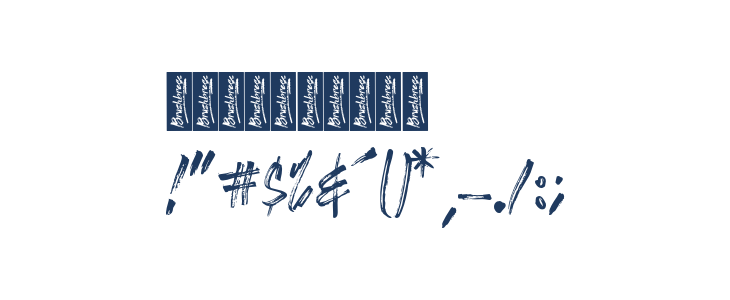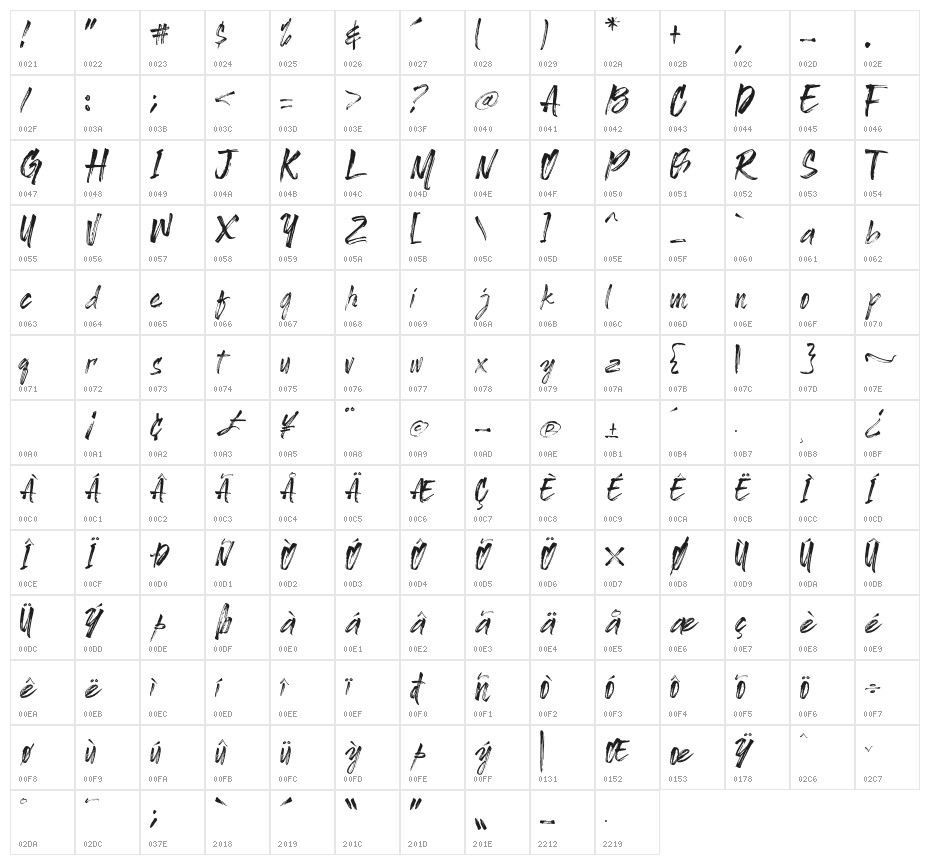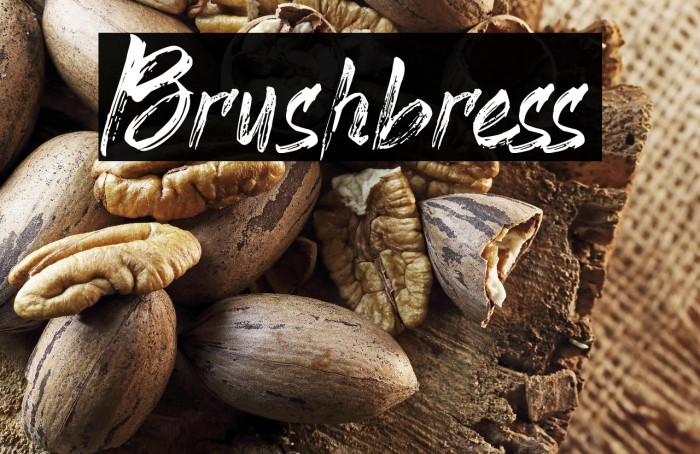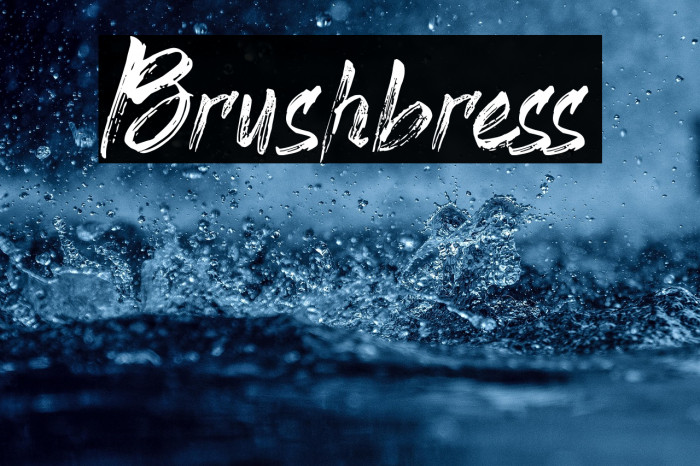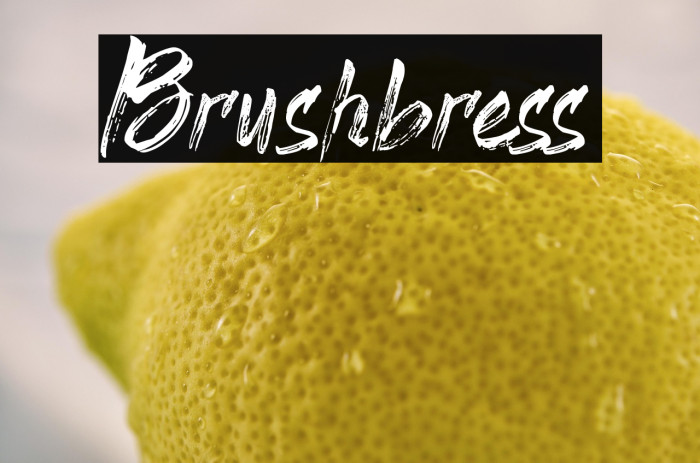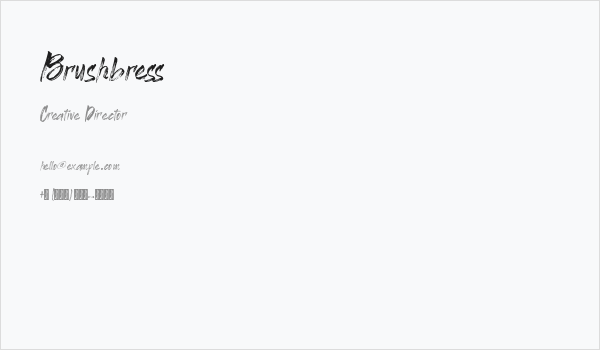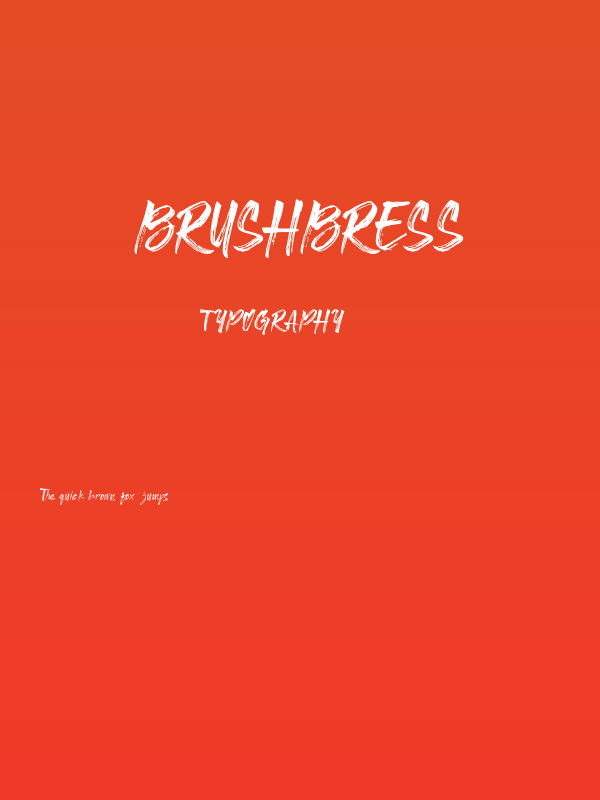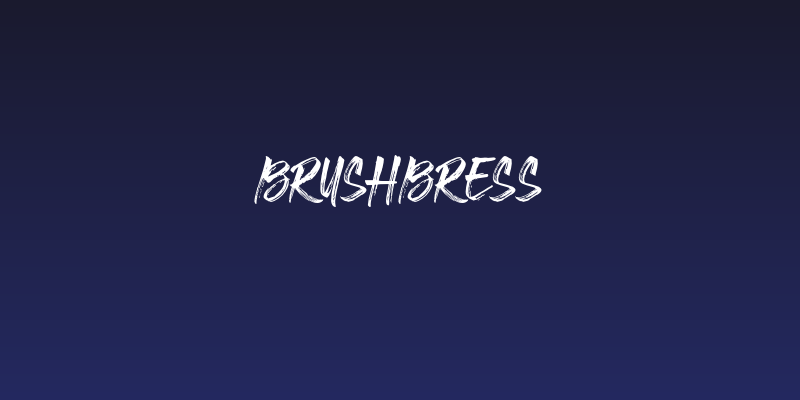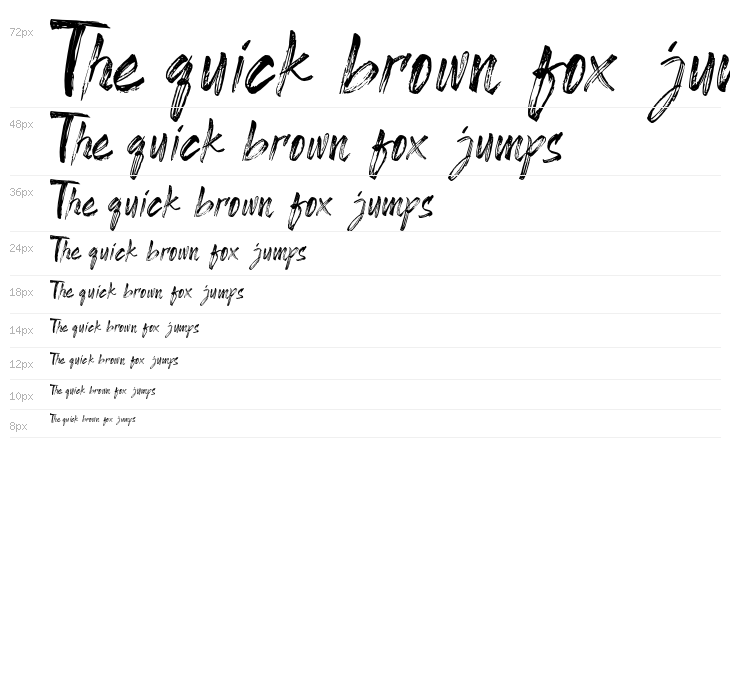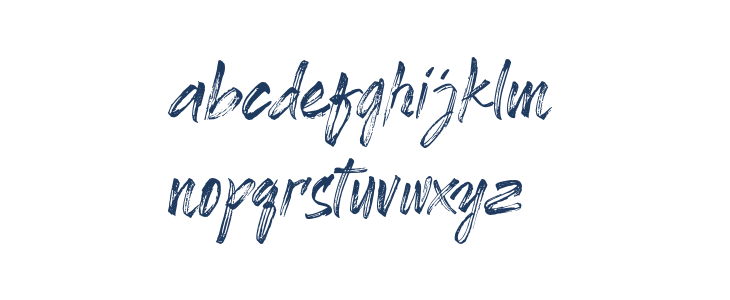
Brushbress Font
Brushbress Description
This font exudes a dynamic and energetic style, characterized by its bold, brush-like strokes that convey a sense of movement and spontaneity. The uppercase and lowercase letters are crafted with a hand-painted appearance, featuring irregular edges and varying stroke widths that add to its artistic flair. The numerals and special characters maintain this expressive quality, making them ideal for creative and eye-catching designs. The overall aesthetic is both modern and artistic, suitable for projects that require a personal and handcrafted touch.
| Overall Style | Modern, Artistic |
| Proposed Projects | Ideal for branding, posters, artistic projects, and any design requiring a bold, creative touch. |